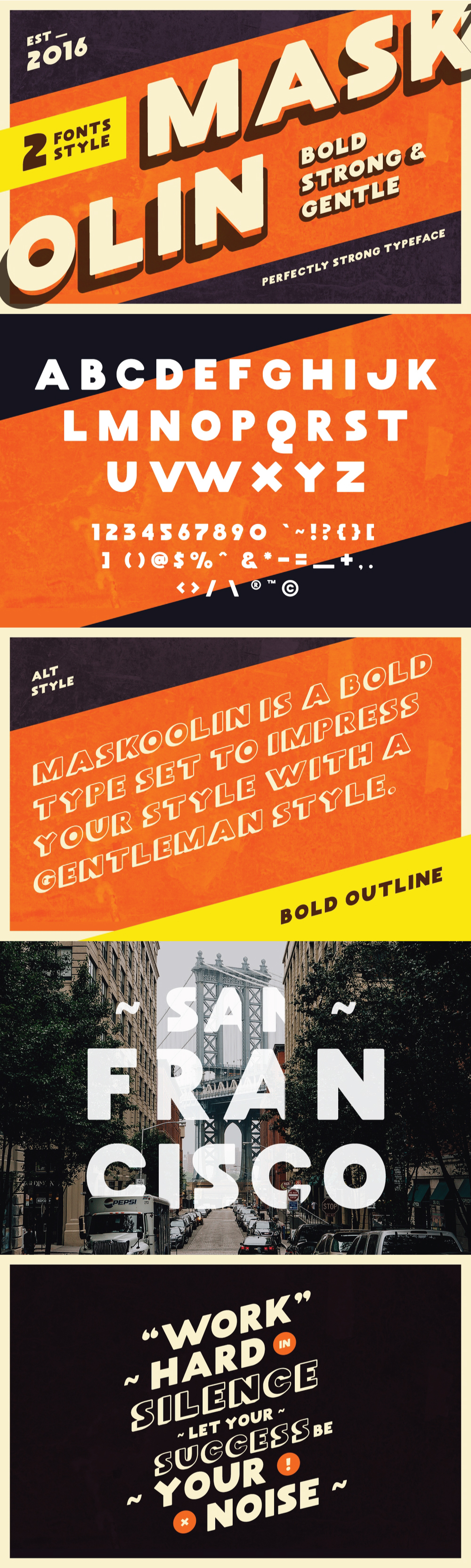
Introducing Maskoolin Typeface from Koll Kolls
Inspired by a vintage era or 90’s look, Maskoolin is a bold display font which will add more personality to your work. In the download you get 2 fonts – A regular font and an alternate shadow style font.
Combining all these styles can generate many different typographic layouts for packaging, book covers, posters, quotes, social media posts and much more!